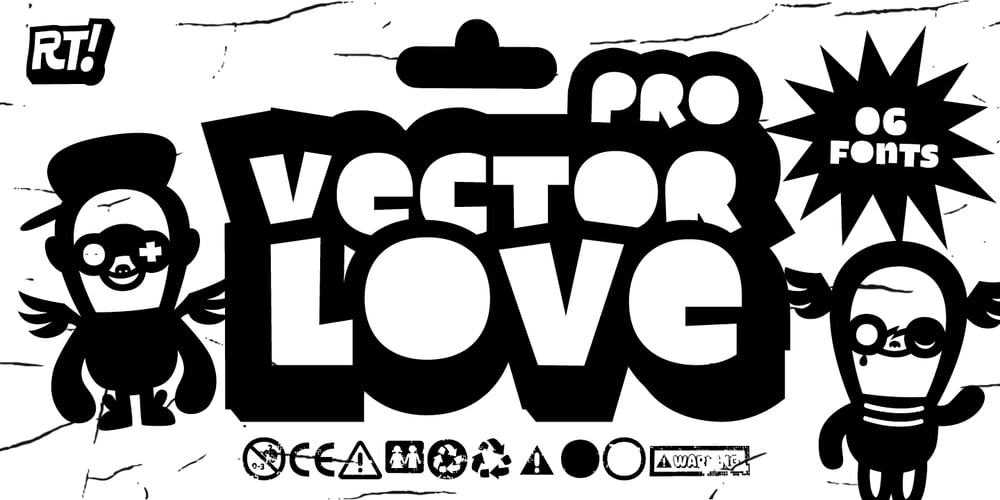
Vector Love Pro
Vector Love Pro font
Vector Love Pro Font Family was designed by Rodrigo Araya Salas and published by RodrigoTypo. Vector Love Pro contains 6 styles and family package options. Vectorlove Pro! is an upgraded version of the old “Vectorlove” created in 2012, now it contains 6 styles, regular version, Rough, Print, and 3 packaging styles, you can create an art toy box through all the symbols, it can work perfectly for T-shirts or decorative things.